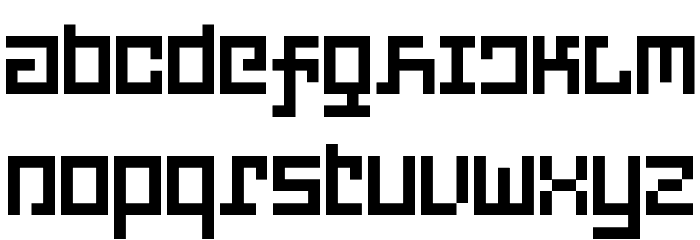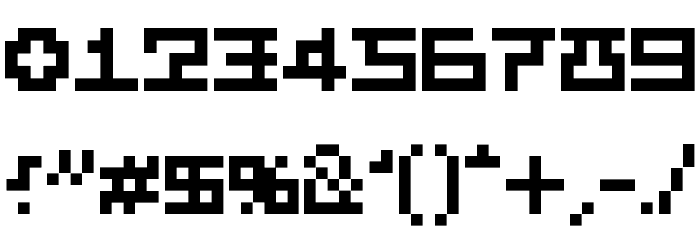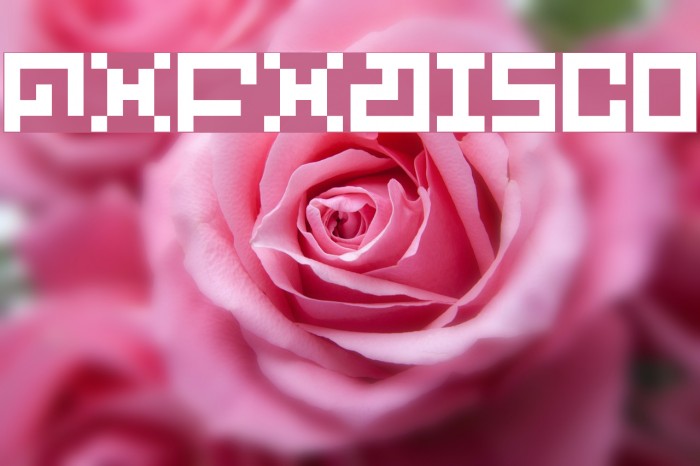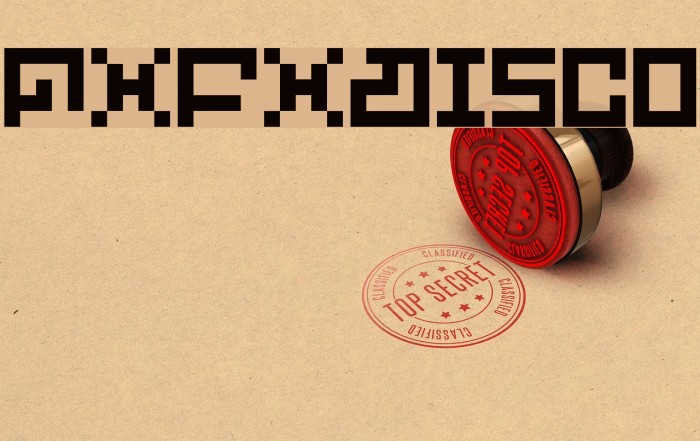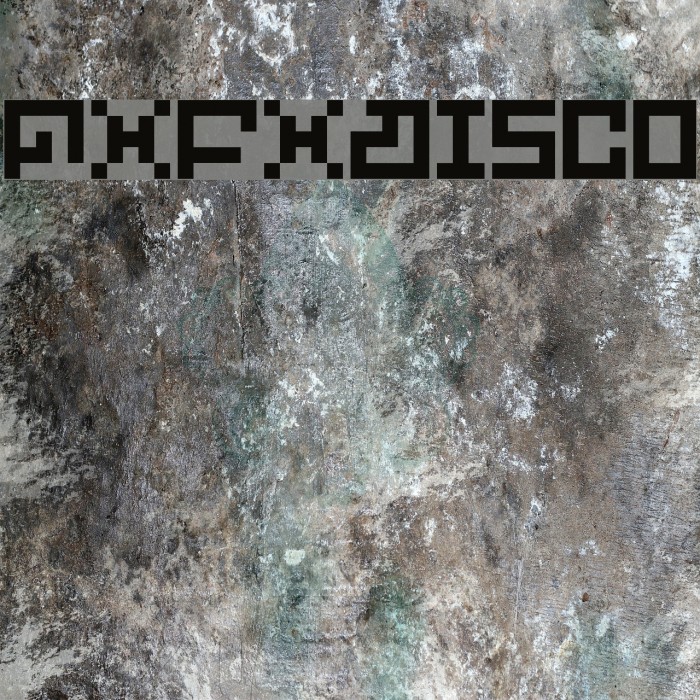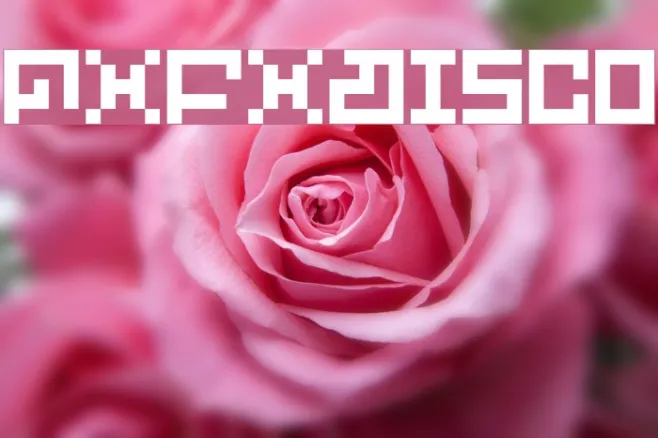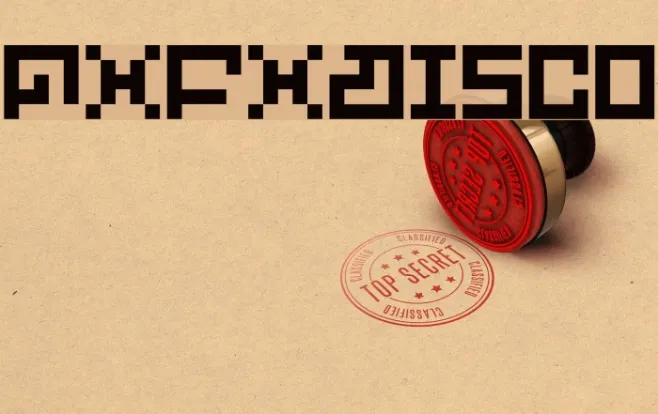
PXFXDisco Font
This font features a bold, geometric design with a distinctly digital aesthetic. Each character is constructed with sharp, angular lines and a blocky structure, reminiscent of early pixel art or retro video game graphics. The uppercase and lowercase letters maintain a consistent height, creating a uniform appearance across the alphabet. Numbers and special characters follow the same stylistic approach, ensuring a cohesive look. The font's unique style makes it stand out, offering a modern yet nostalgic feel that is both eye-catching and versatile.
A bold, geometric font with a digital, pixel-art style.
- Proposed Projects: Ideal for retro-themed designs, video game graphics, digital art projects, and modern branding that seeks a nostalgic touch.